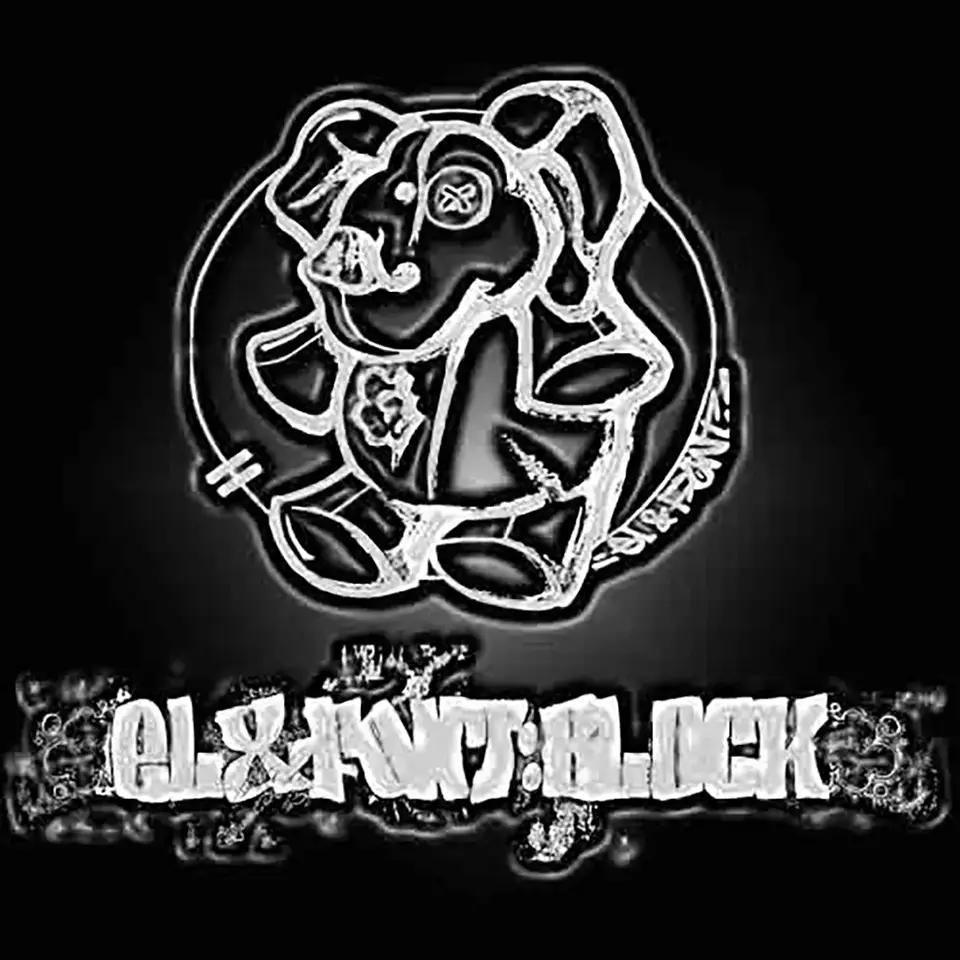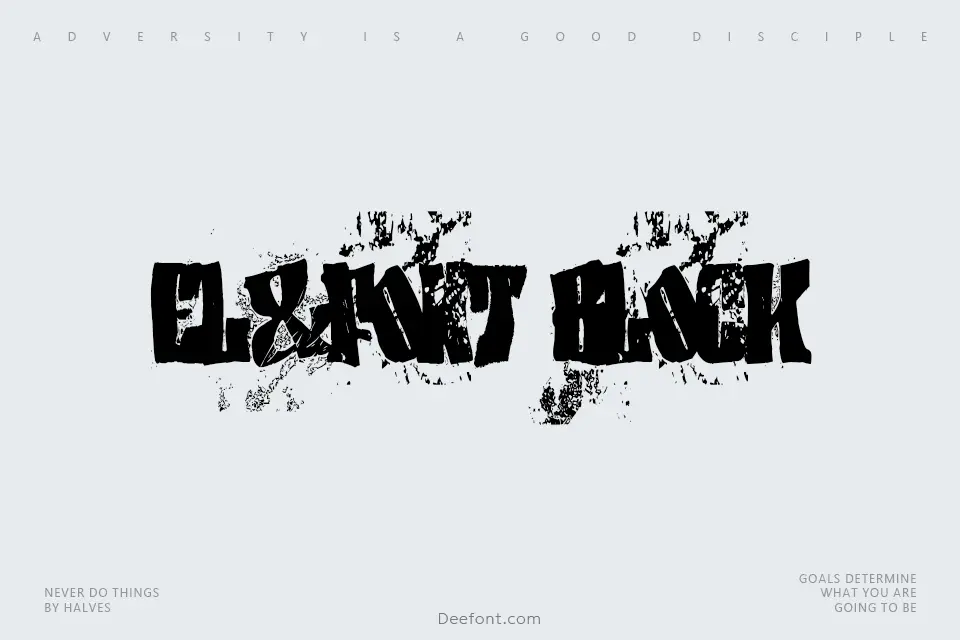
El&Font Block Font
El&Font Block is a bold and condensed graffiti script font designed for impactful urban typography and creative visual projects. This distinctive typeface features solid block-style letterforms combined with artistic graffiti elements, offering designers a versatile tool for eye-catching headlines, posters, and street art-inspired compositions. With its unique character set including decorative clouds, arrows, and grunge objects, the font delivers authentic street culture aesthetics suitable for contemporary design applications.